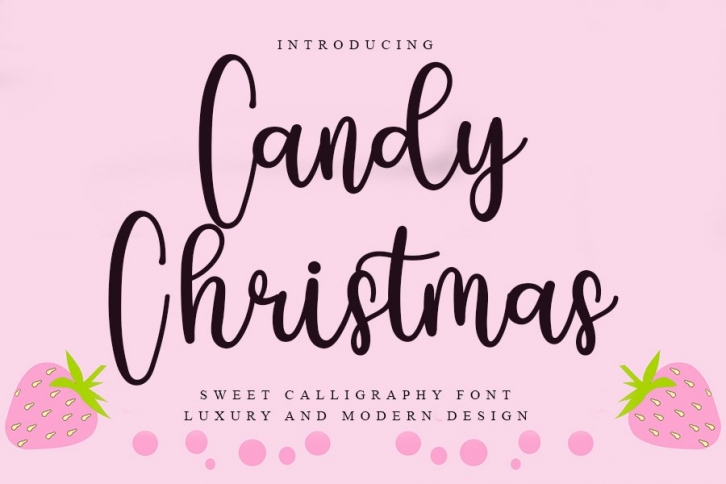
Candy Christmas is a great font that was designed by FreshType INK. Imagine the amount of combinations you can create using this font! The archive is 11.6 MB and it was released on September 2, 2021. Candy Christmas looks beautiful on wedding invitations, greeting cards, logos, posters, labels, t-shirt designs, logos, business cards and is perfect for use in ink or watercolor works, fashion, magazines, packaging and food menus, children's books and more!